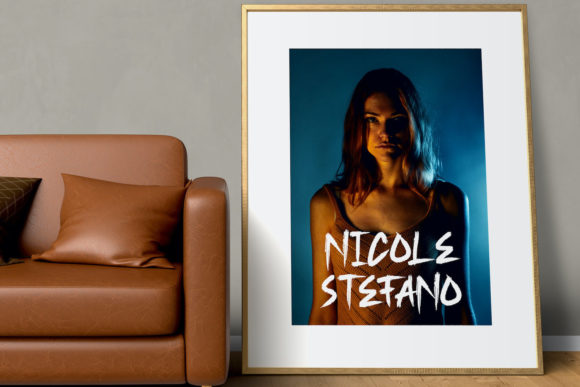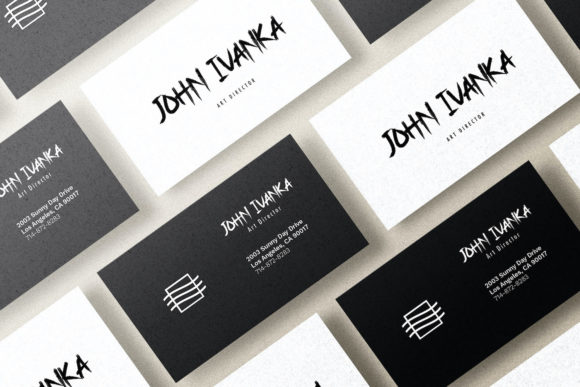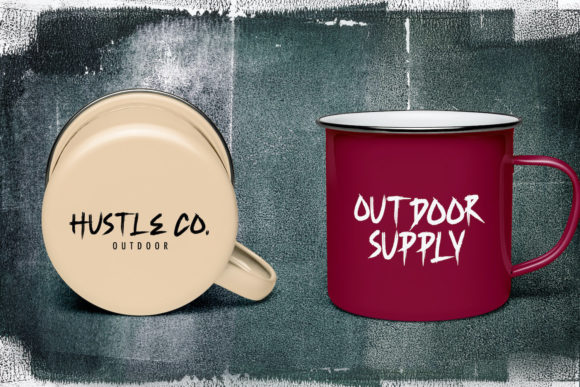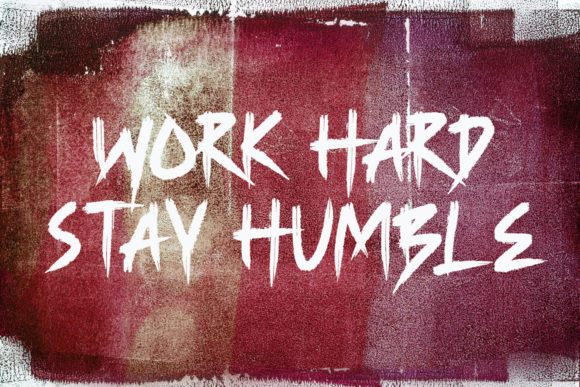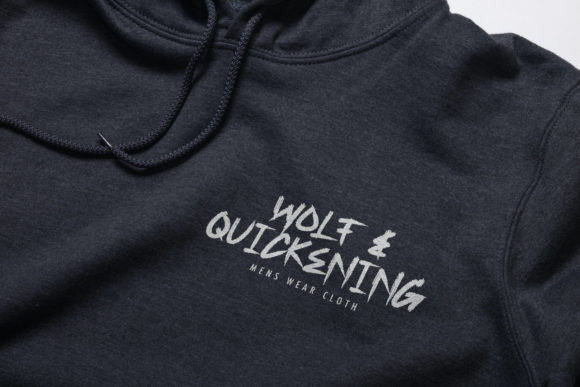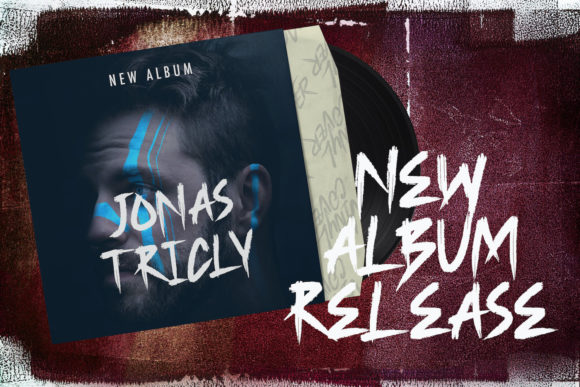
Introduction to Parakan Brush Font
Parakan Brush is a bold and rough textured display font.
This original look will appeal to a wide range of crafty ideas, from letterheads and titles, to stationery .